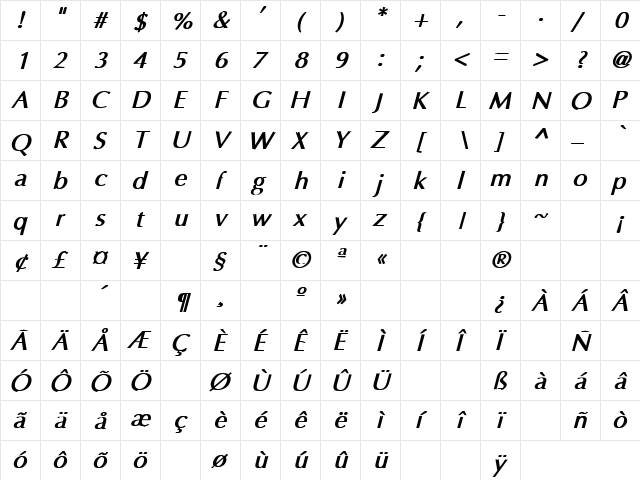
Friends 18 Bold Italic
Design Context for Friends 18 Typeface
Friends 18 is a composed and adaptable typeface that performs quietly and consistently across a wide range of design contexts. The dynamic lean of this cut emphasises speed and emphasis in any layout. The heavy weight commands attention and anchors typographic hierarchies.
Pro Tip: Use Friends 18 for emphasis, pull quotes, and subheadings where its slanted energy can add rhythm to the layout.